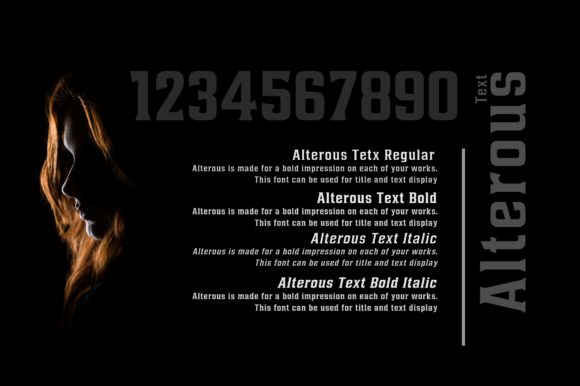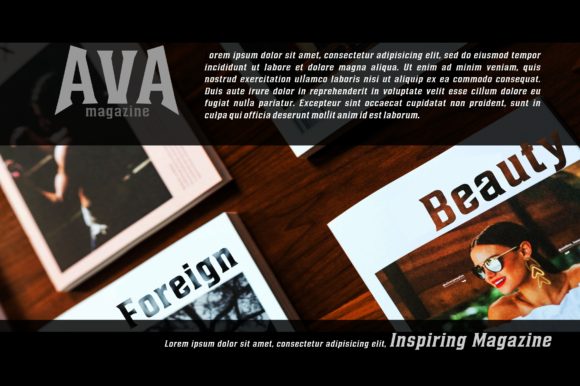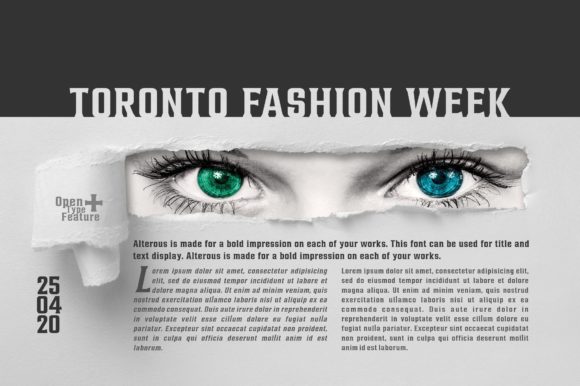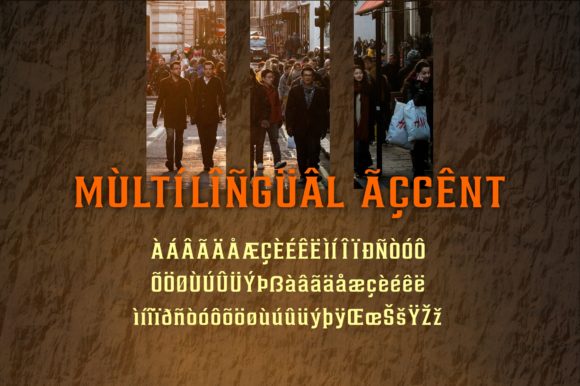
Introducing Alterous Font: The Ultimate Serif Font for Bold Designs
In the world of design, typography plays a crucial role in conveying messages and making a lasting impression. When it comes to creating bold and impactful designs, the right font can make all the difference. This is where Alterous Font comes in – a serif font specifically designed to make a statement. In this article, we’ll explore the features and benefits of Alterous Font, and how it can elevate your designs to the next level.
What is Alterous Font?
Alterous Font is a serif font that exudes confidence and sophistication. Its bold and sturdy design makes it perfect for creating a strong impression on various design materials. Whether you’re working on posters, flyers, banners, t-shirts, screen printing, magazines, newspapers, logos, or any other design project, Alterous Font is an excellent choice.
Key Features of Alterous Font
- Bold and Impactful: Alterous Font is designed to make a statement. Its bold and sturdy design ensures that your message gets noticed.
- Versatile: This font can be used for a wide range of design projects, from print materials to digital designs.
- Serif Style: The serif style of Alterous Font adds a touch of sophistication and elegance to your designs.
- Easily Readable: Despite its bold design, Alterous Font is easy to read, making it perfect for body text and headlines.
Benefits of Using Alterous Font
So, why choose Alterous Font for your design projects? Here are some benefits of using this amazing font:
- Grabs Attention: The bold design of Alterous Font ensures that your message gets noticed, making it perfect for headlines and titles.
- Professional Look: The serif style of Alterous Font adds a touch of sophistication and professionalism to your designs.
- Time-Saving: With Alterous Font, you can create stunning designs in no time. Its versatility and ease of use make it a great time-saving tool.
How to Use Alterous Font
Using Alterous Font is easy and straightforward. Here are some tips to get you started:
- Pair it with Other Fonts: Experiment with pairing Alterous Font with other fonts to create stunning contrast and visual interest.
- Use it for Headlines: Alterous Font is perfect for headlines and titles. Use it to grab attention and make a statement.
Design Ideas Using Alterous Font
Alterous Font is a versatile font that can be used for a wide range of design projects. Here are some design ideas to get you started:
- Posters and Flyers: Use Alterous Font to create eye-catching posters and flyers that grab attention.
- T-Shirts and Screen Printing: Create stunning t-shirts and screen printing designs with Alterous Font.
- Magazines and Newspapers: Use Alterous Font for headlines and titles in magazines and newspapers.
- Logos and Branding: Create professional logos and branding materials with Alterous Font.
| Font Name | Alterous Font |
| Author | ZetDesign |